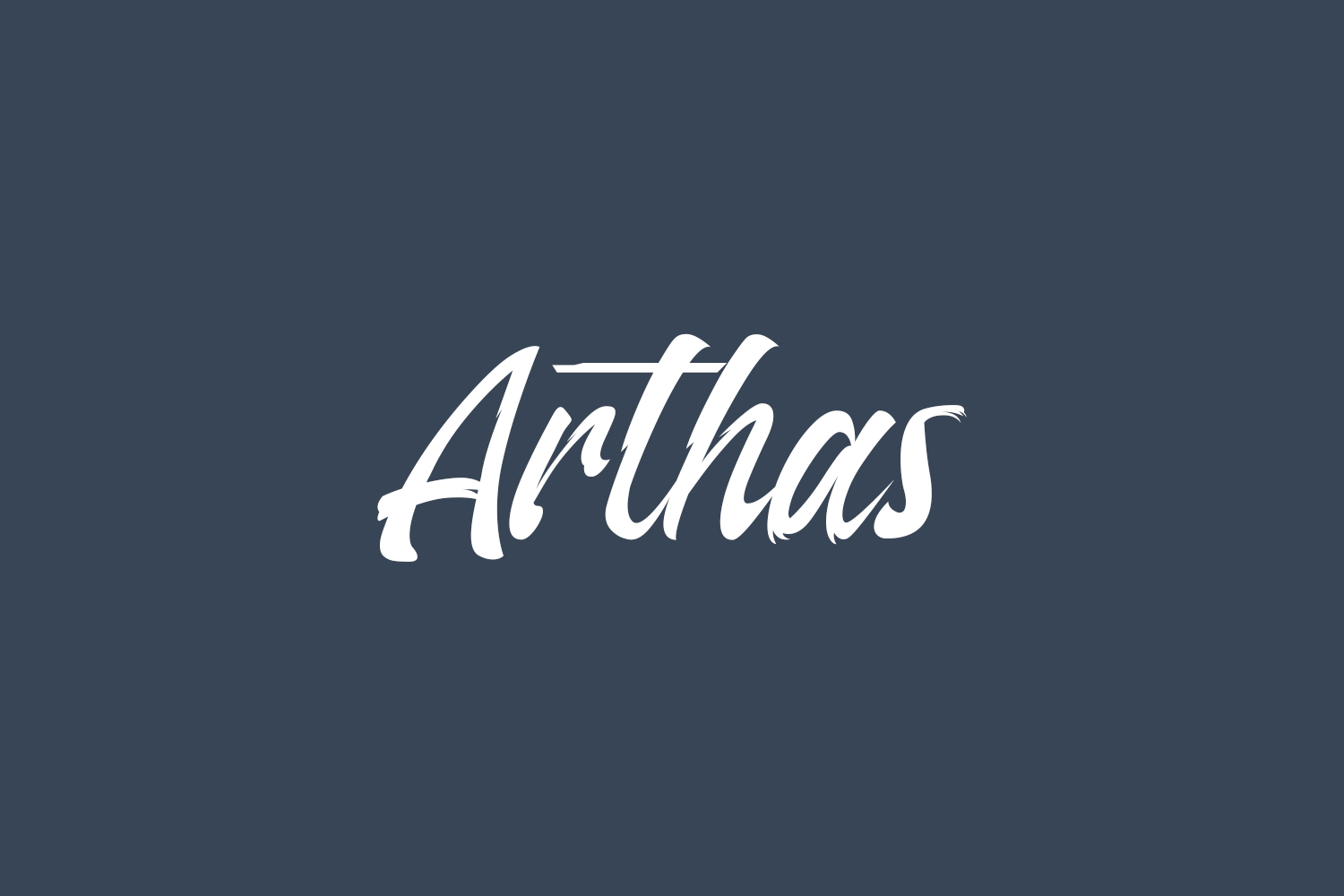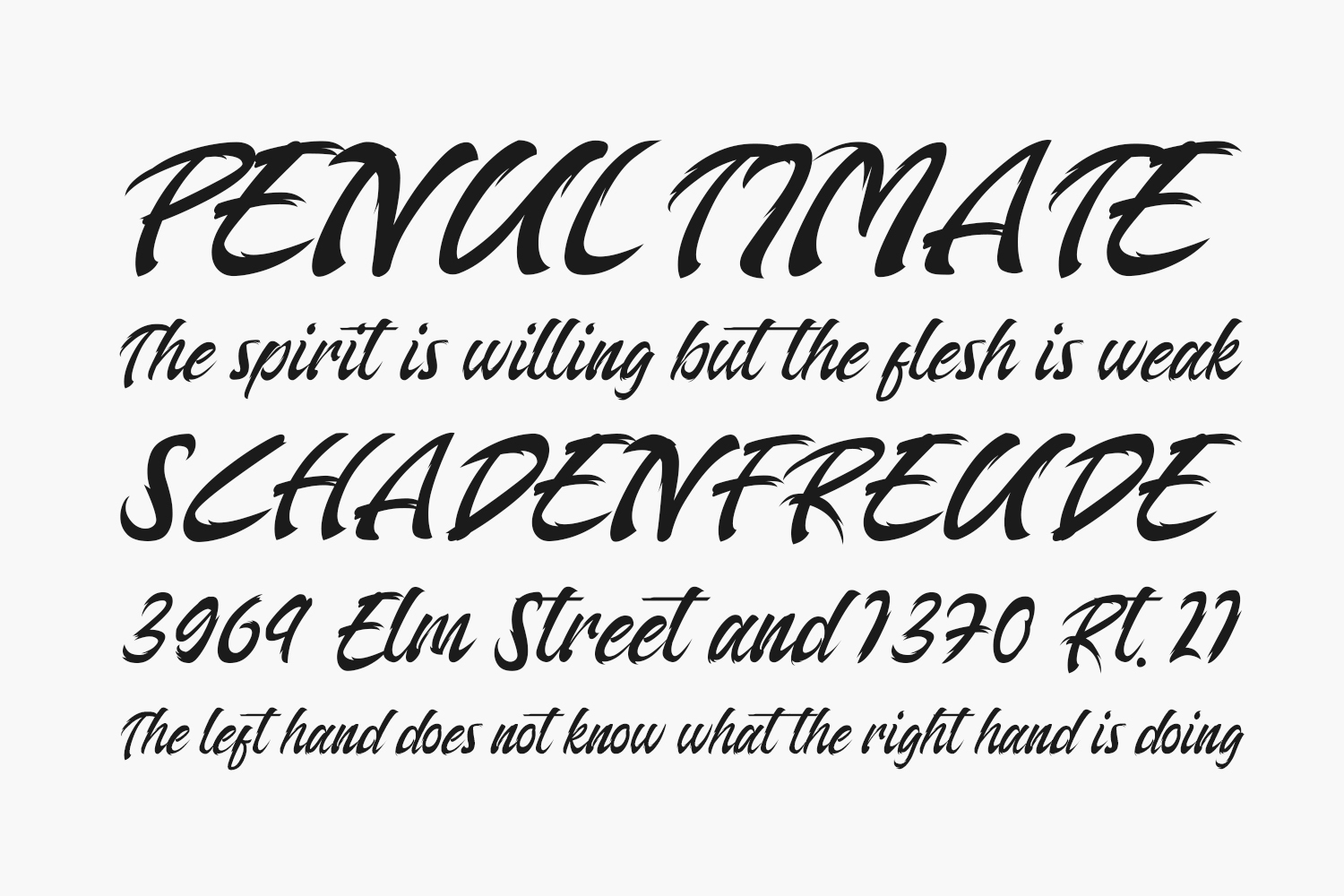
Arthas Free Font is a flowing handwritten font, described by an elegant touch, perfect for your favorite projects. Fall in love with its incredibly distinct and timeless style and use it to create spectacular designs. Arthas Free Font was designed by Typotopia Studio and is free for personal use only. Please purchase the full version for commercial use.